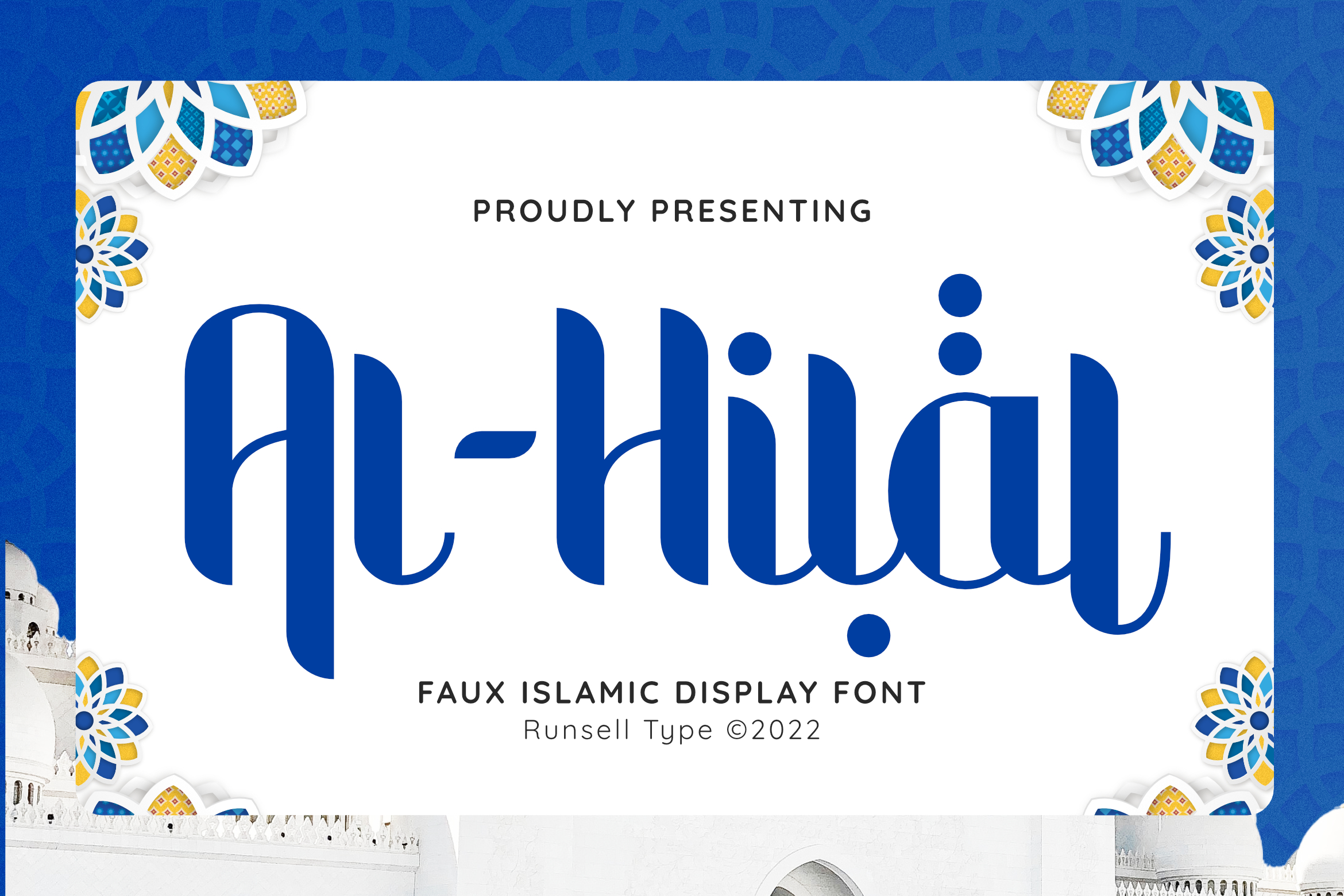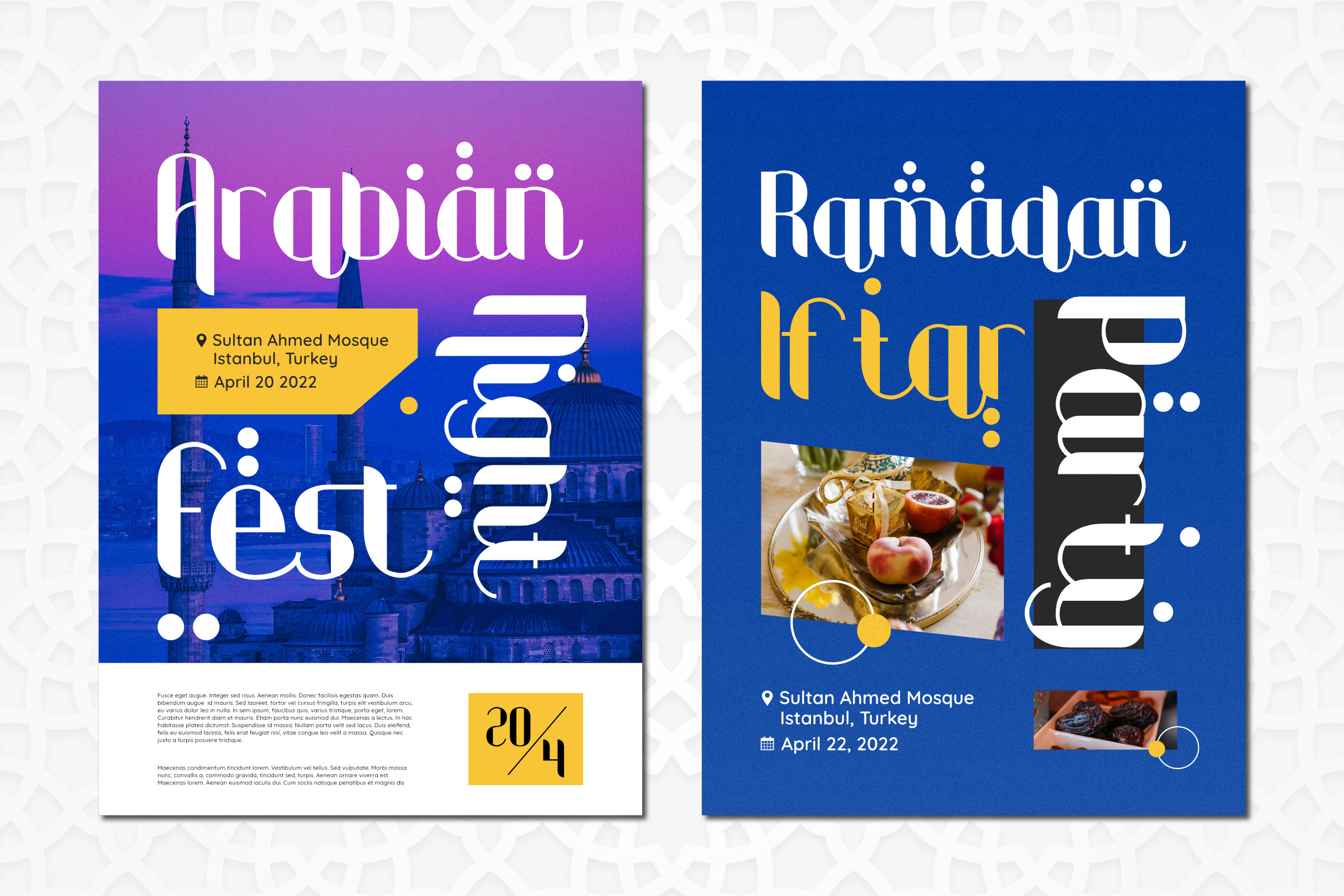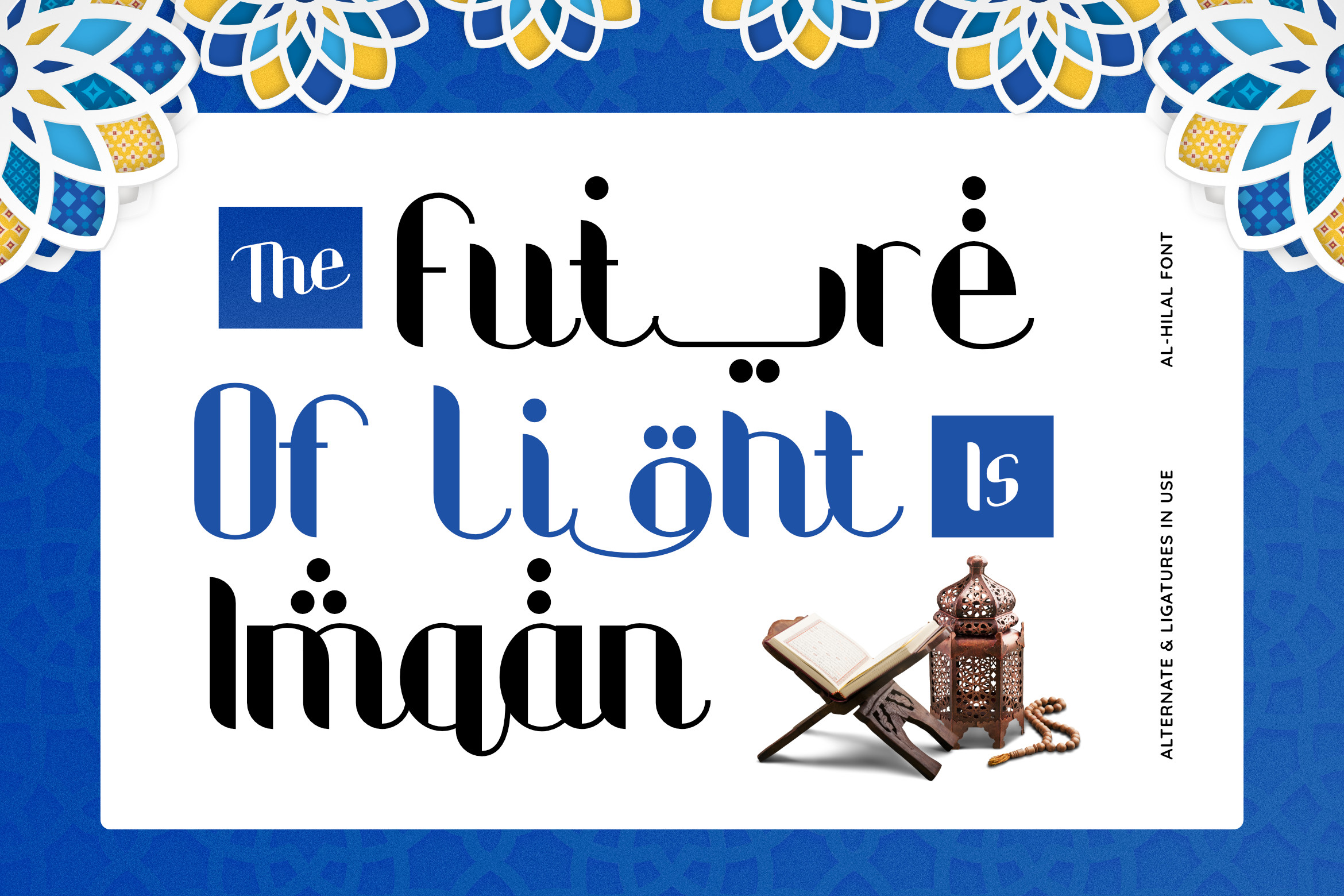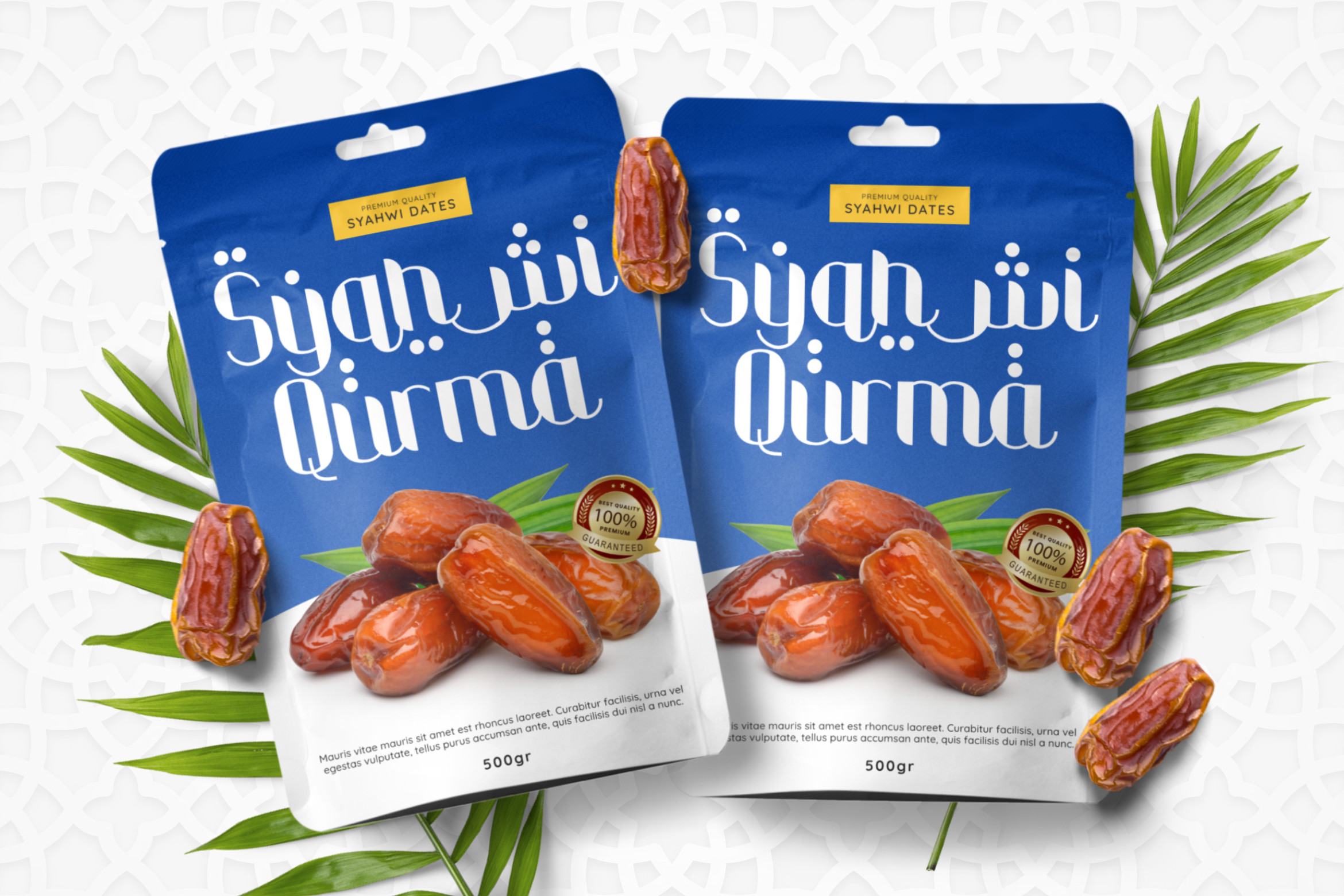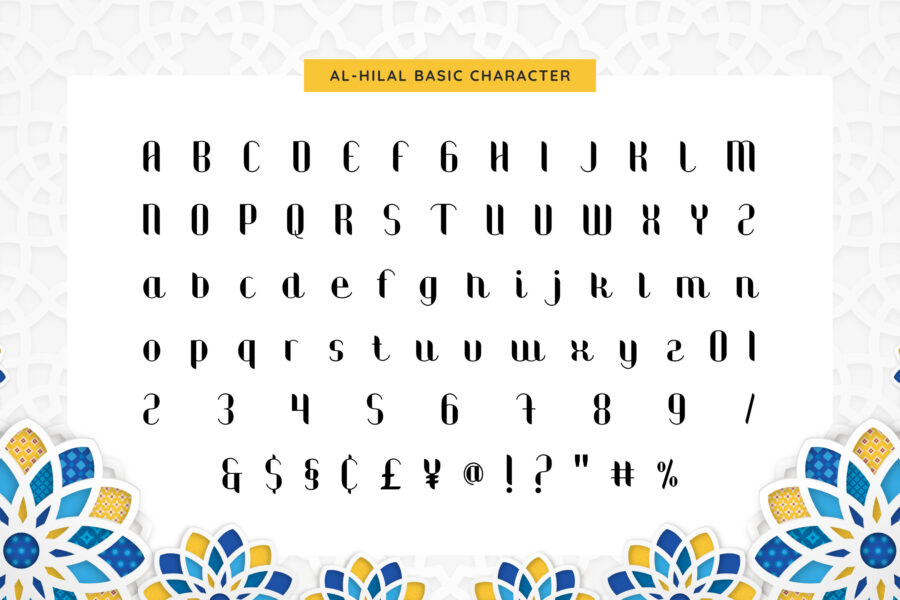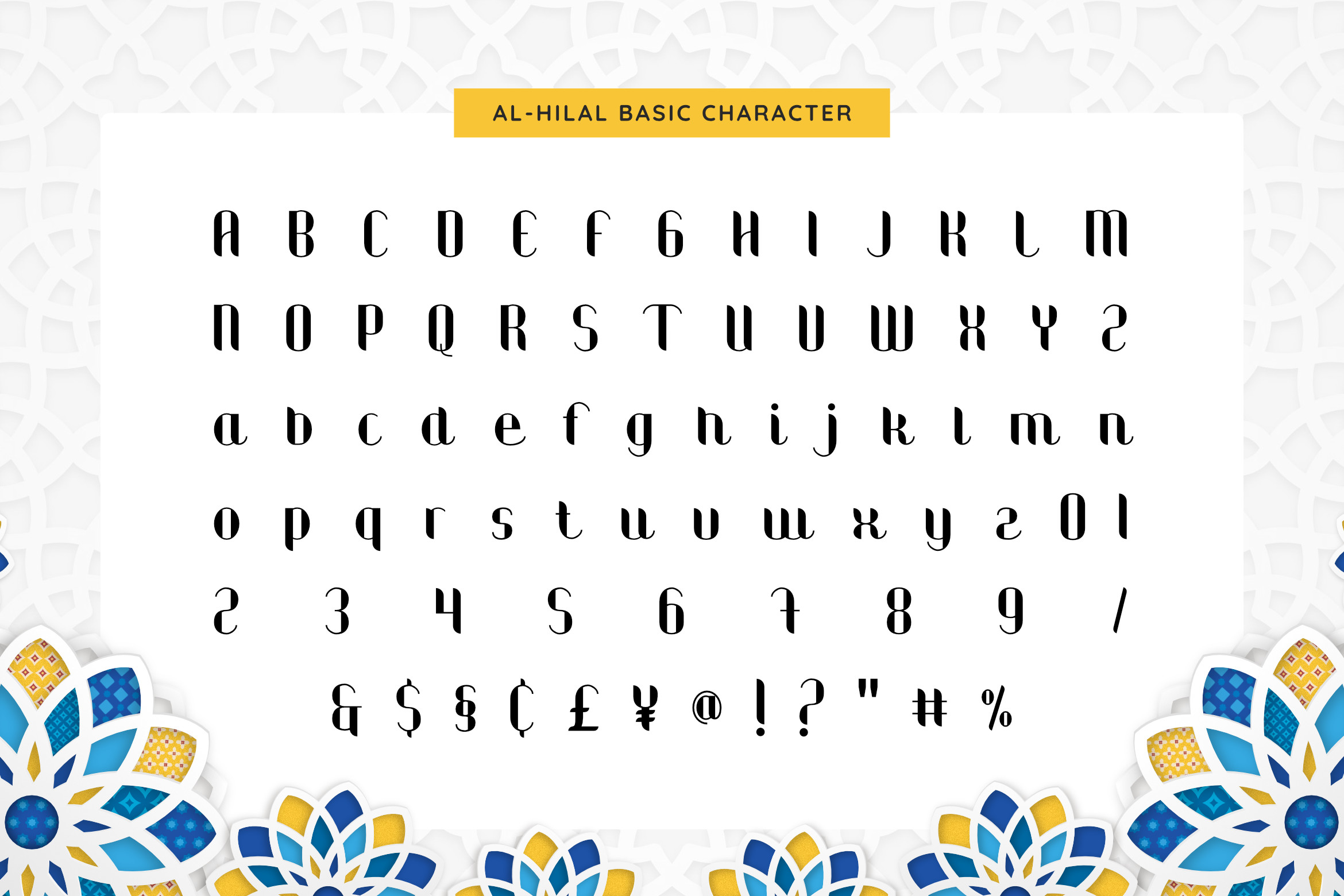
Al-Hilal is a modern faux-Islamic display font that captures the essence of Arabic calligraphy in a contemporary Latin character set. With its tall, elegant strokes and rounded terminals, this typeface brings a refined decorative touch perfect for festive and cultural branding. The smooth curvature and subtle ligatures add a touch of authenticity while remaining highly legible for Latin readers.
Designed with versatility in mind, Al-Hilal is ideal for product packaging, event posters, religious celebrations, and visual identities that want to reflect Middle Eastern charm. Its multilingual support and stylistic alternates ensure creative flexibility across various themes—whether for Ramadan promotions, halal branding, or Islamic-inspired designs.